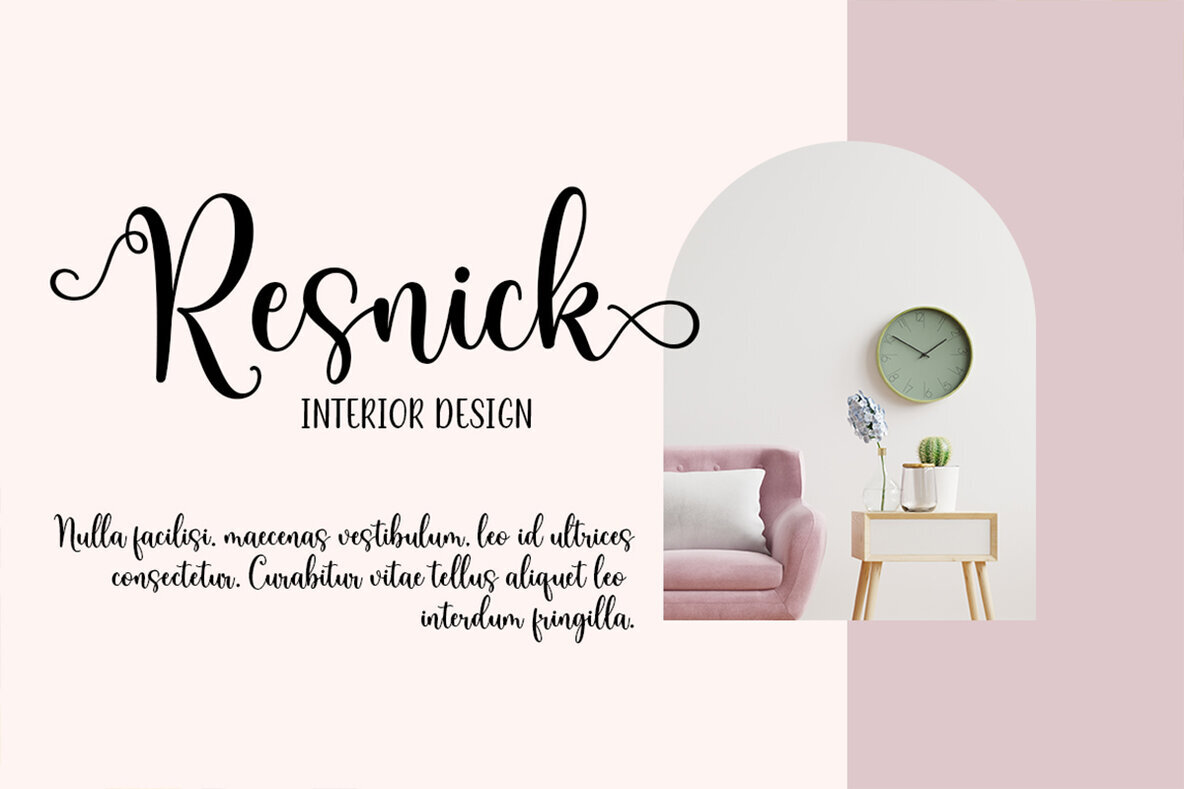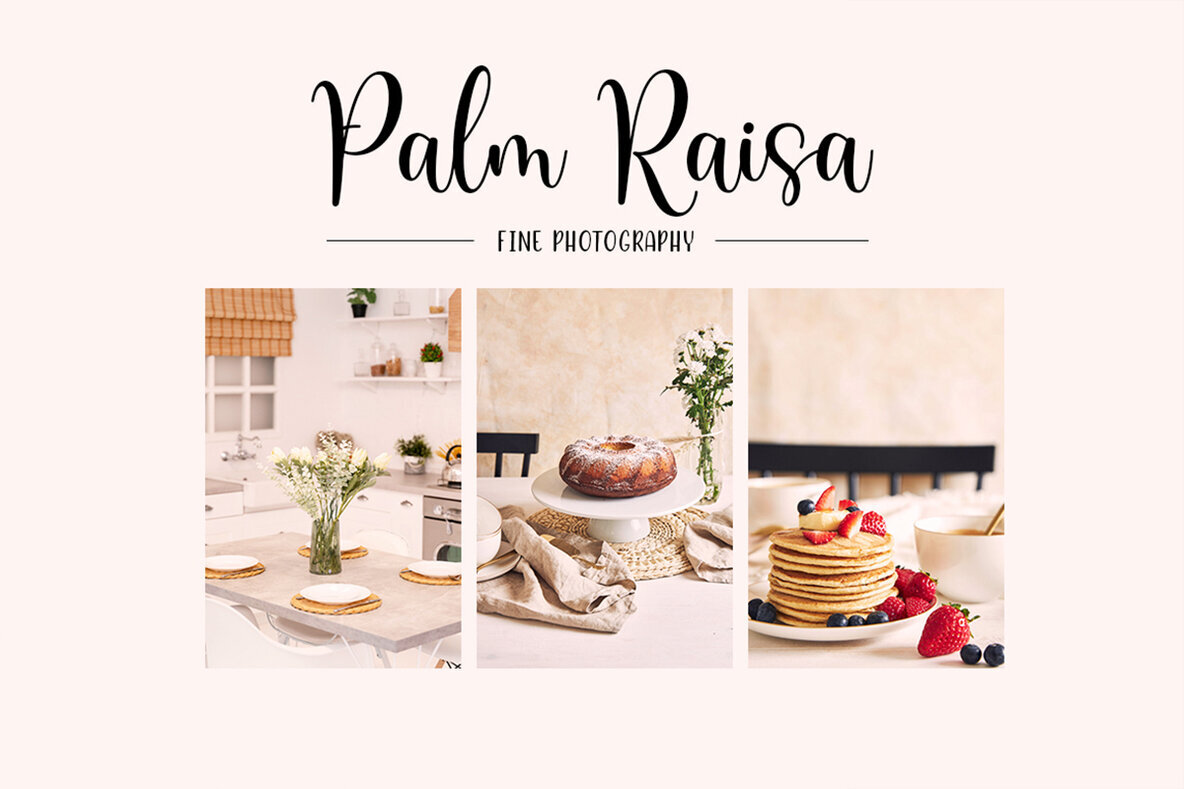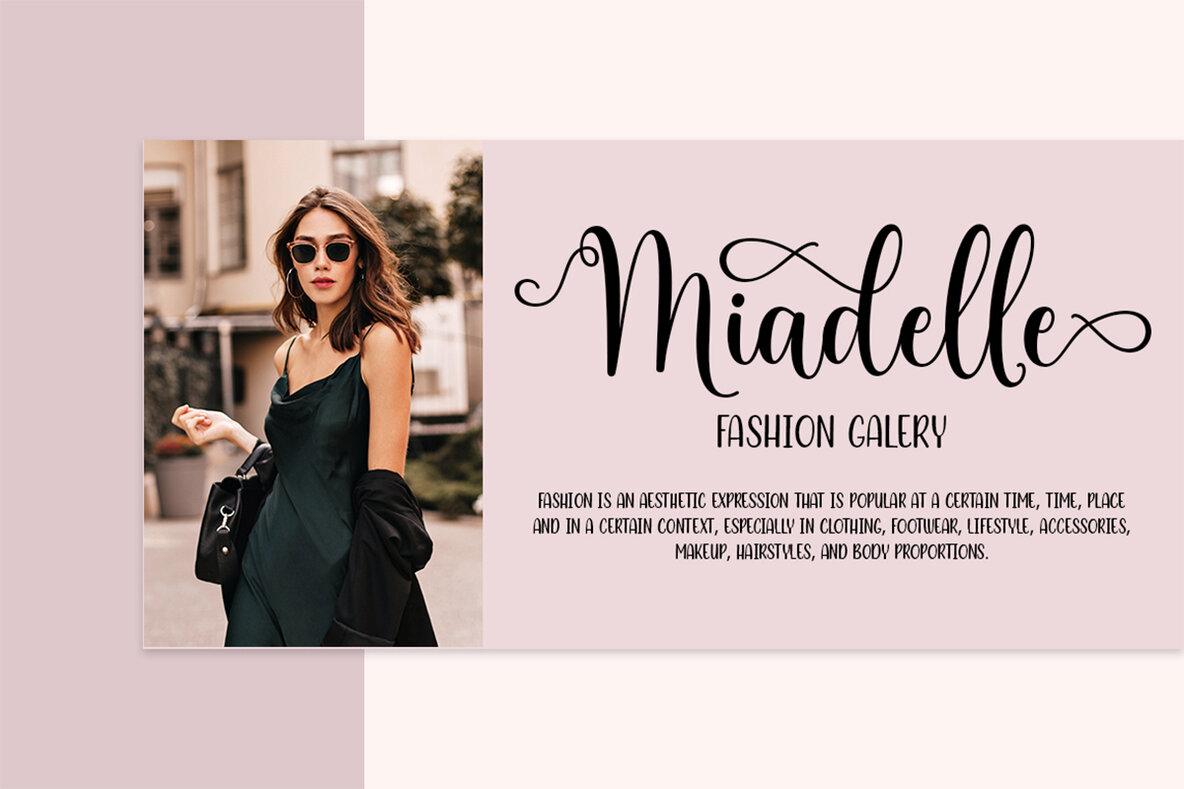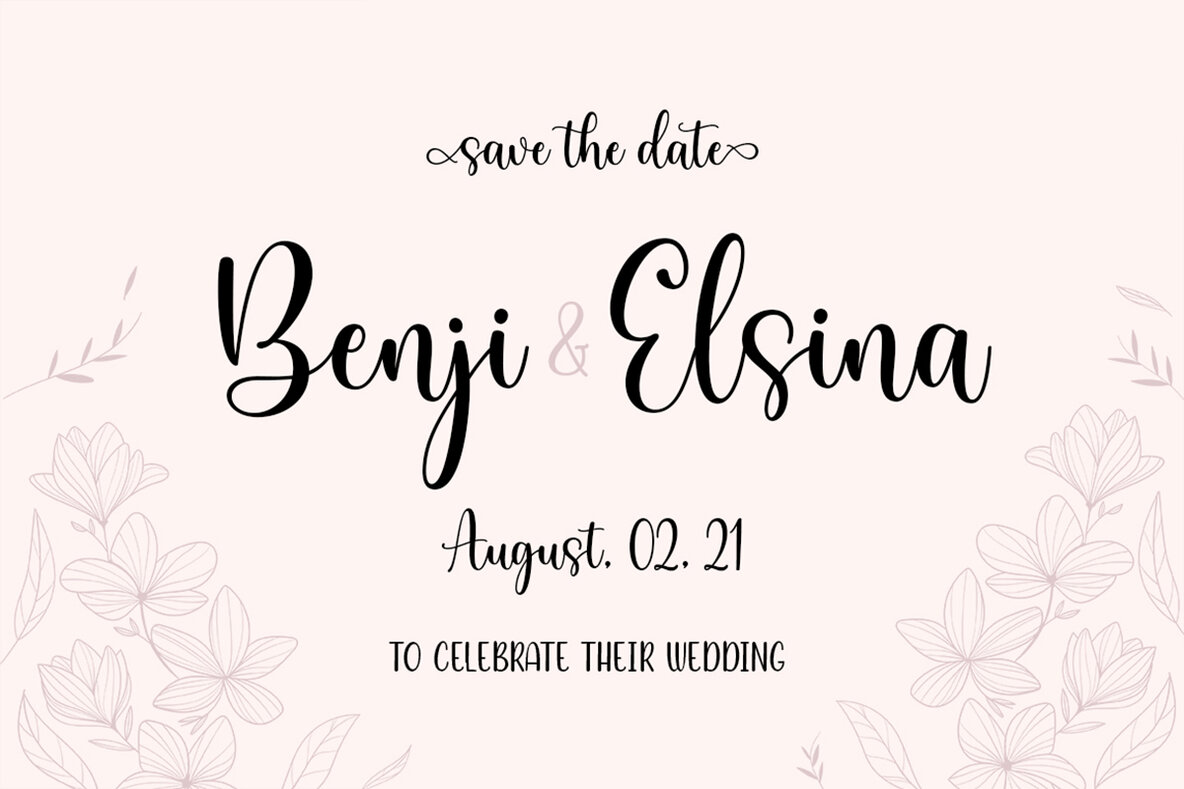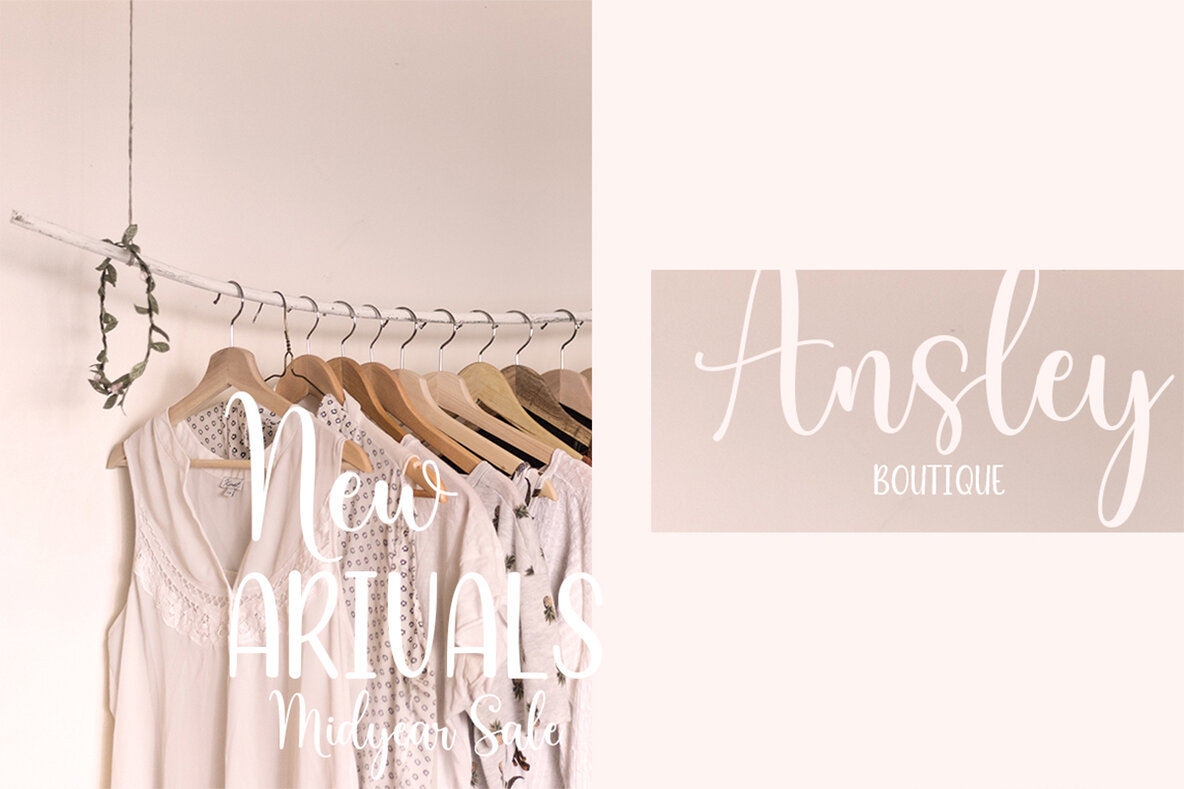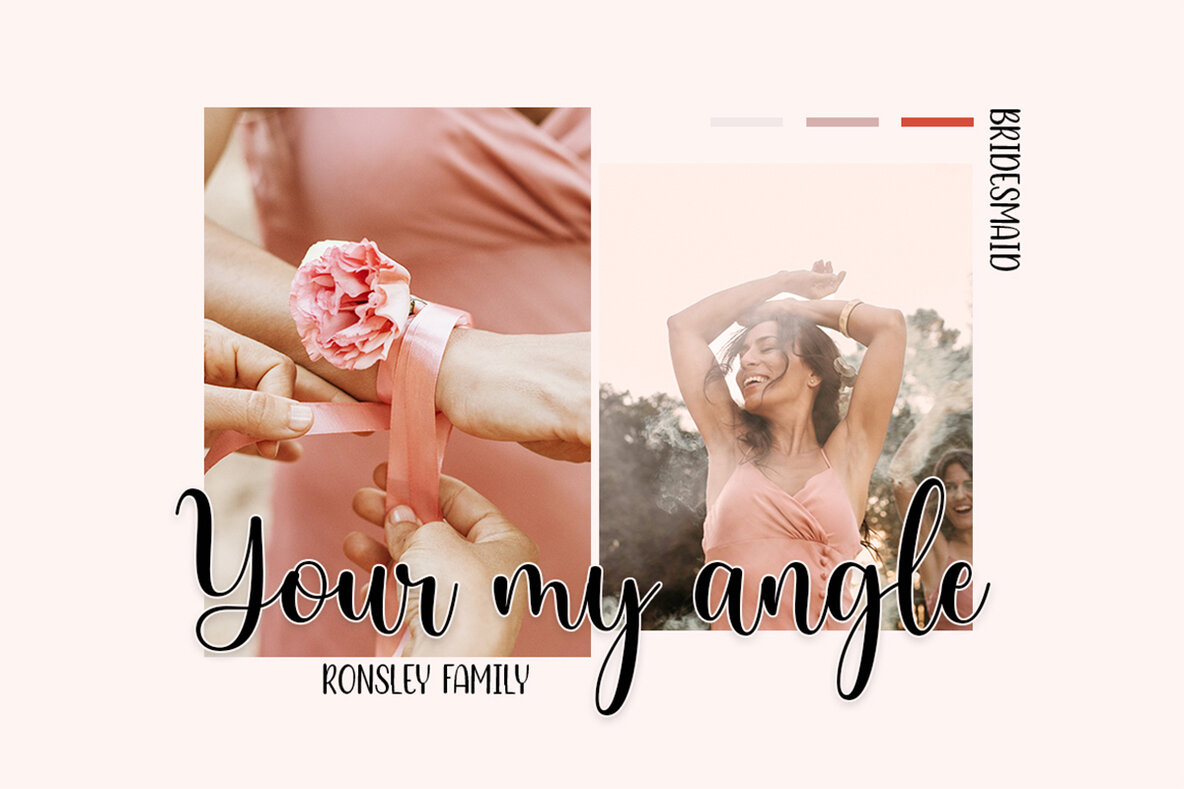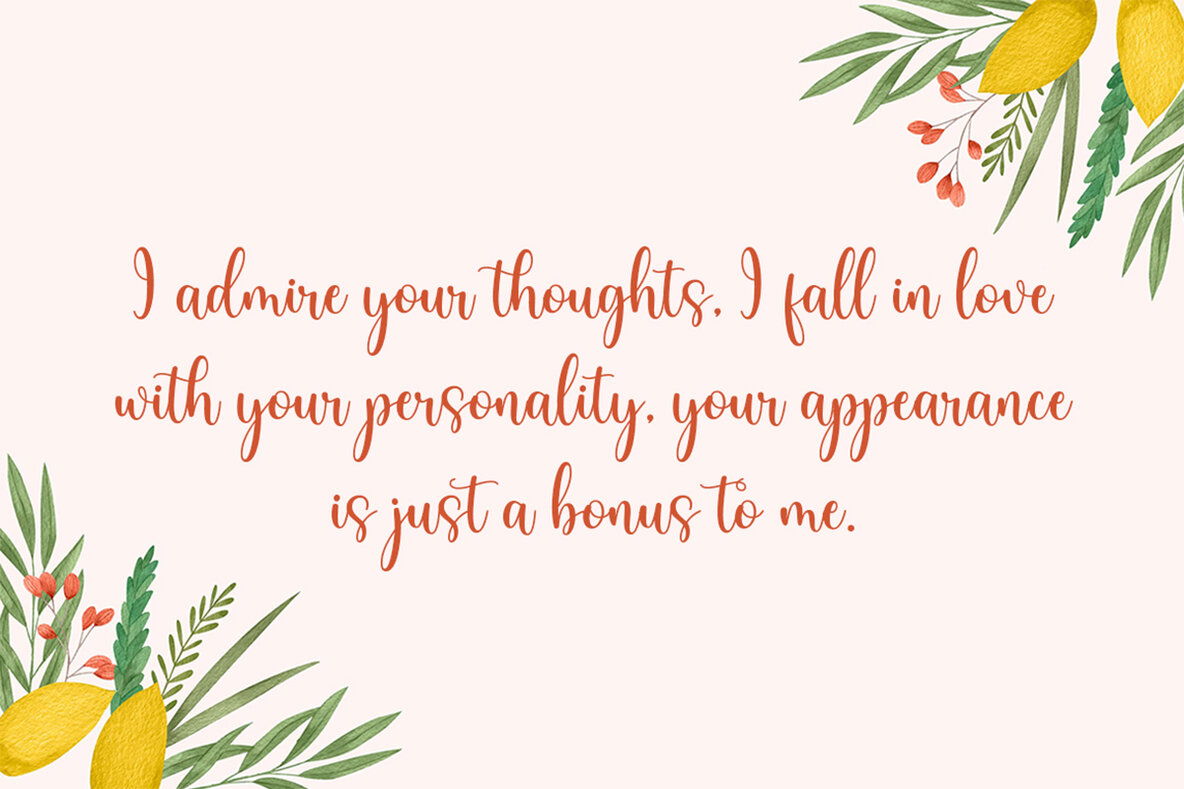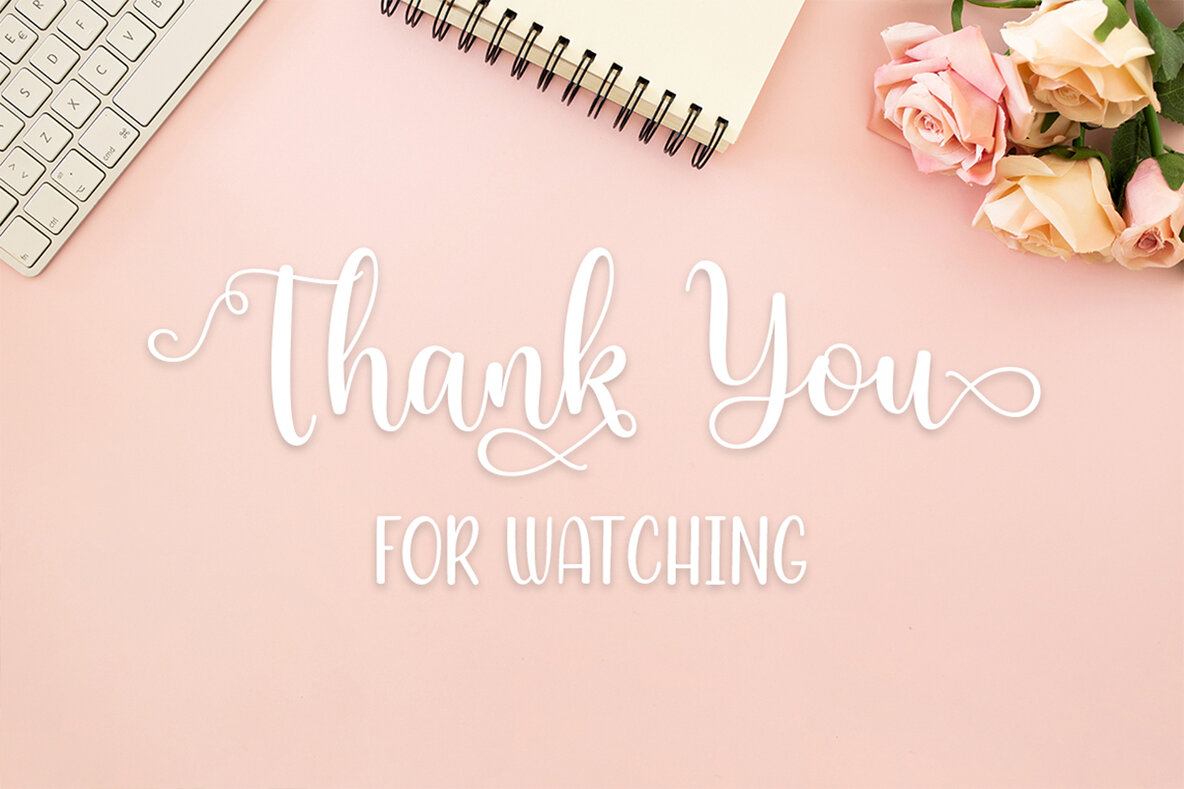
Ronsley Family Font
Meeting the demands of modern design, the Ronsley Family Font Duo by Attract Studio blends contemporary aesthetics with a hand-drawn appeal. This versatile duo is well-suited for an array of creative projects, providing a fresh touch that enhances everything from branding to wedding invitations. Integrate the Ronsley Family Font Duo into your designs for a distinctive, stylish finish that aligns effortlessly with today’s creative needs.Ronsley Family: Versatile Hand-Drawn Font Duo
Perfect for Contemporary Design